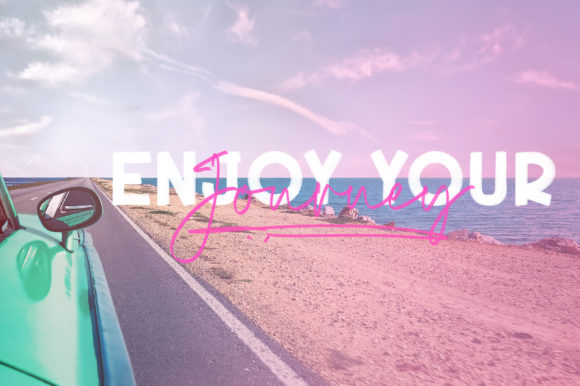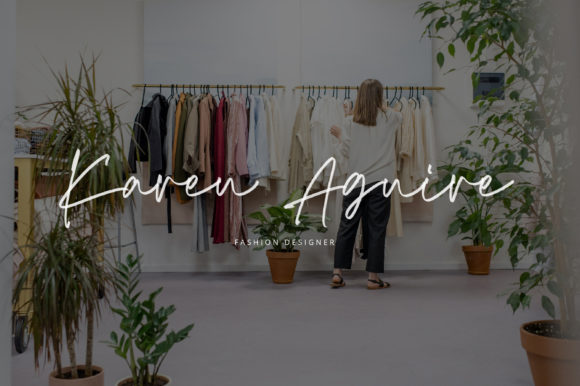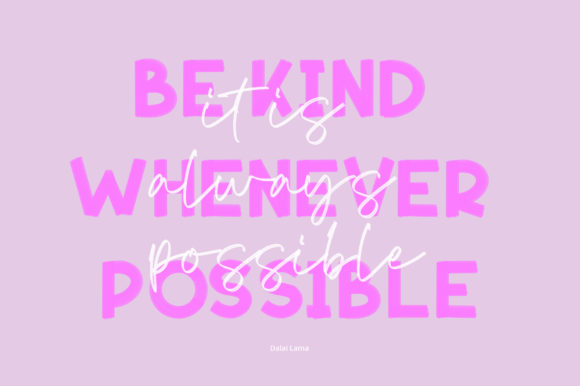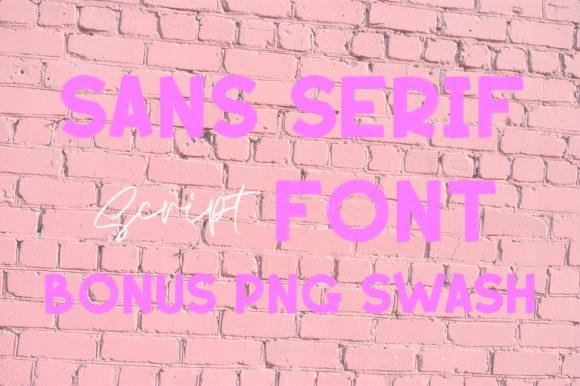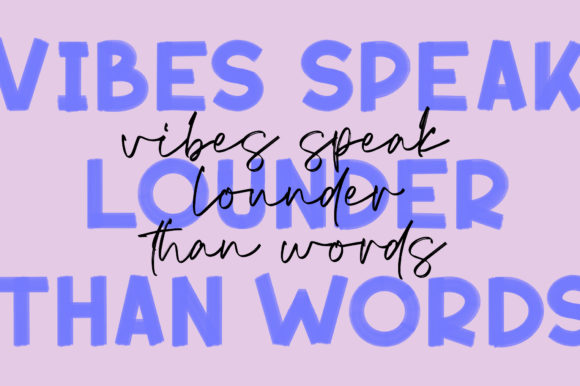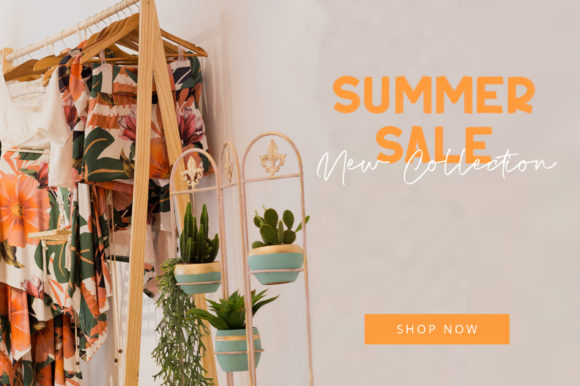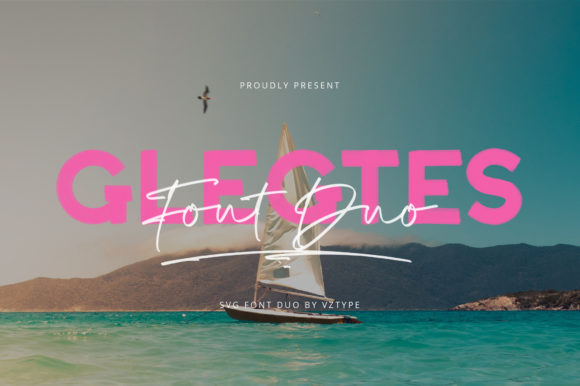
Introducing Glegtes Duo Font: Elevate Your Designs with Modern Luxury
In the world of design, fonts play a crucial role in conveying the tone and aesthetic of a project. For designers and crafters looking to add a touch of modern luxury to their work, the Glegtes Duo Font is an excellent choice. This versatile font duo combines a cute script with a beautiful sans serif, making it perfect for a wide range of design projects.
The Perfect Pairing: Script and Sans Serif
The Glegtes Duo Font is a masterful pairing of two distinct fonts that complement each other beautifully. The script font brings a touch of elegance and whimsy, while the sans serif font adds a clean and modern edge. Together, they create a unique and sophisticated look that is sure to elevate any design project.
Whether you’re working on branding, headings, wedding designs, invitations, signatures, logos, labels, or any other type of project, the Glegtes Duo Font is an excellent choice. Its versatility is unmatched, and its modern and luxurious feel is sure to impress.
What Makes Glegtes Duo Font Special?
So, what sets the Glegtes Duo Font apart from other font duos on the market? Here are a few key features that make it a standout:
Using Glegtes Duo Font in Your Designs
One of the best things about the Glegtes Duo Font is its ease of use. Here are a few tips for incorporating it into your designs:
- Pair the Script and Sans Serif: Use the script font for headings or titles, and the sans serif font for body text or descriptions.
- Experiment with Color: As a color font, the Glegtes Duo Font offers endless possibilities for creative expression. Try experimenting with different colors and combinations to find the perfect look for your project.
- Add a Personal Touch: The Glegtes Duo Font is perfect for wedding designs, invitations, and other personal projects. Add a touch of elegance and sophistication with this beautiful font duo.
Why Designers and Crafters Love Glegtes Duo Font
So, why do designers and crafters love the Glegtes Duo Font? Here are a few reasons:
- Modern and Luxurious Feel: This font duo has a distinctly modern and luxurious feel that is perfect for high-end design projects.
- Versatility: The Glegtes Duo Font can be used in a wide range of design projects, from branding and headings to wedding designs and invitations.
In conclusion, the Glegtes Duo Font is an excellent choice for designers and crafters looking to add a touch of modern luxury to their work. With its versatile pairing of a cute script and beautiful sans serif, this font duo is perfect for a wide range of design projects. Whether you’re working on branding, headings, wedding designs, or any other type of project, the Glegtes Duo Font is sure to elevate your designs to the highest level.